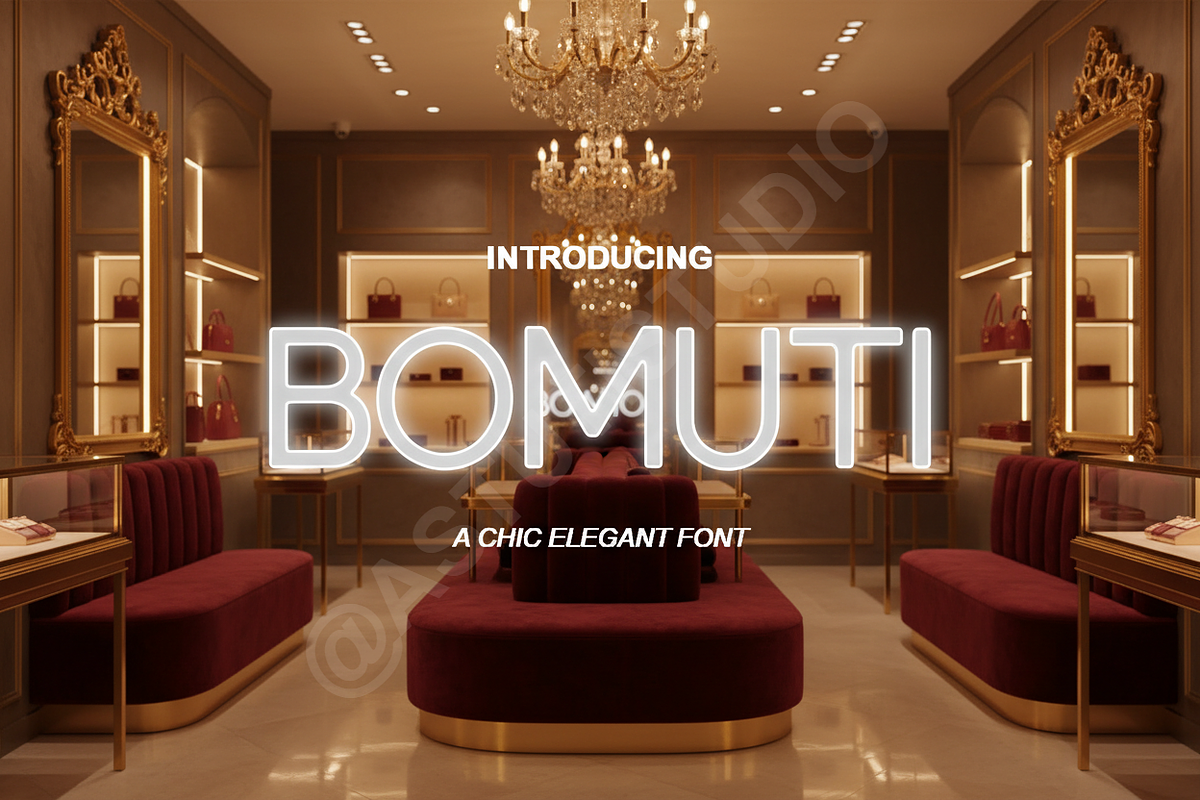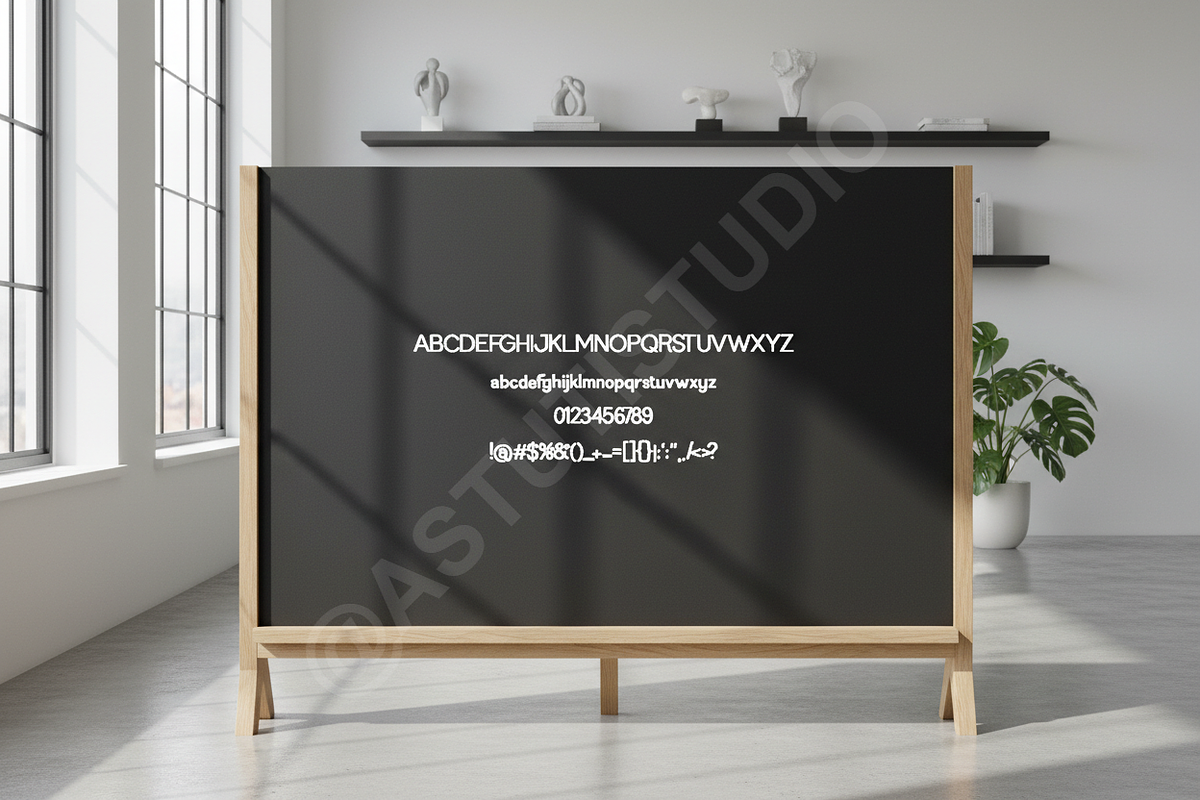
Bomuti: Elegant Luxury Modern Serif
Bomuti is a testament to timeless elegance, crafted for the discerning designer who demands sophistication and readability. This modern serif typeface embodies luxury with its graceful curves and high contrast, making it the ideal choice for projects requiring a refined, high-end aesthetic.
Bomuti seamlessly bridges the gap between classic refinement and contemporary minimalism. It is engineered to perform exceptionally well in sophisticated luxury branding, detailed editorial layouts, and impactful social media campaigns.
Bomuti is designed with precision and versatility in mind:
- Perfectly balanced stroke weight for high legibility, even in body copy.
- Extensive character set supporting multiple languages (A-Z, a-z, 0-9, punctuation, and multilingual characters).
- Optimized for display use, making headlines and mastheads impactful.
- Versatile application for both digital and print media (Web, Mobile, Magazine, Packaging).
- PUA Encoded Characters: Fully accessible without additional design software.
- Full set of standard upper and lowercase characters, numerals, and punctuation.
- Multilingual support for over 100 languages.